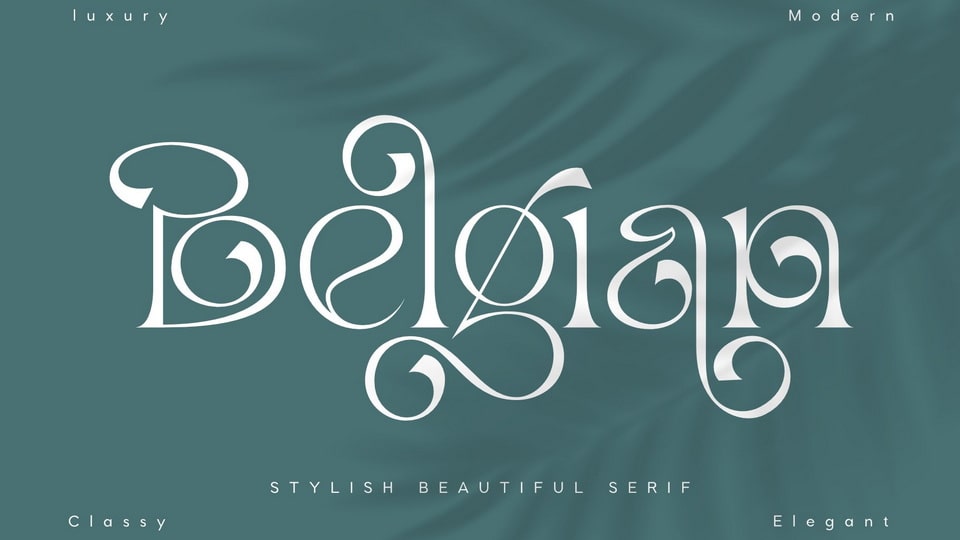
Download Belgian font, a sophisticated, charming serif typeface with a fashionable touch. Specially designed for luxury, elegant, feminine projects, Belgian font is perfectly suitable for creating modern, chic designs.